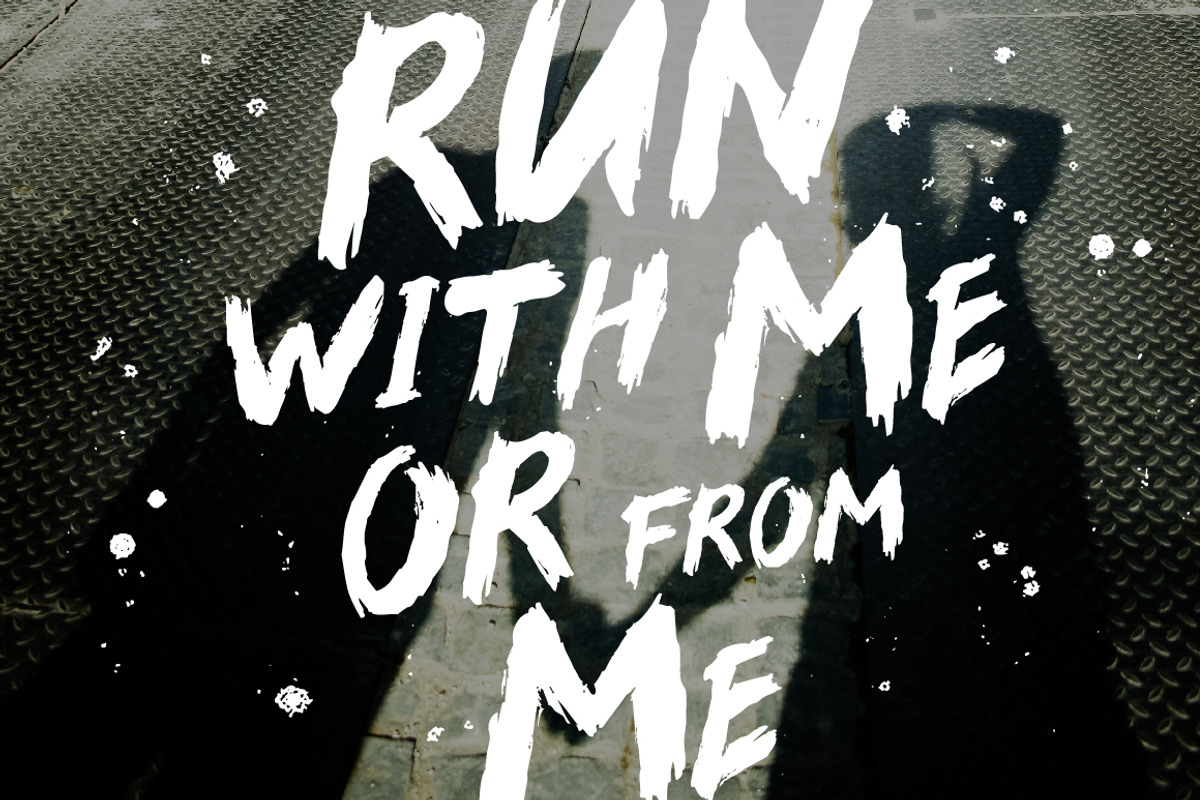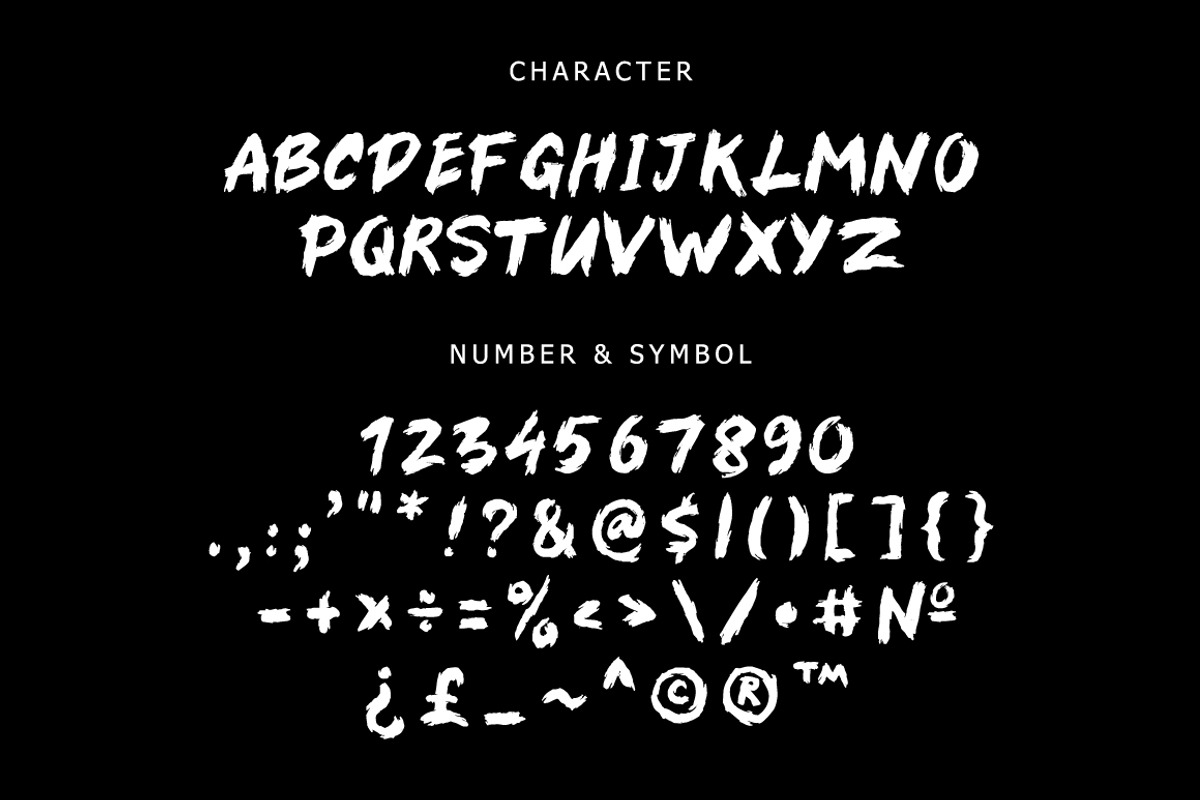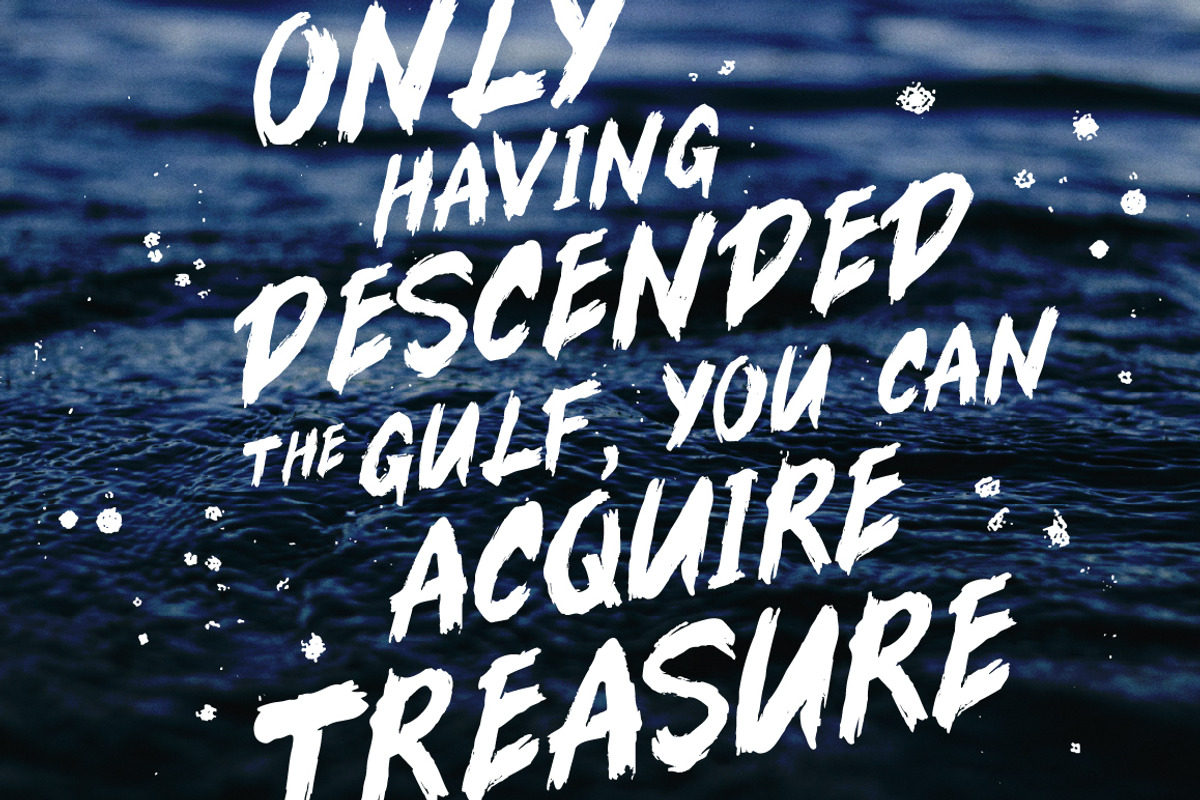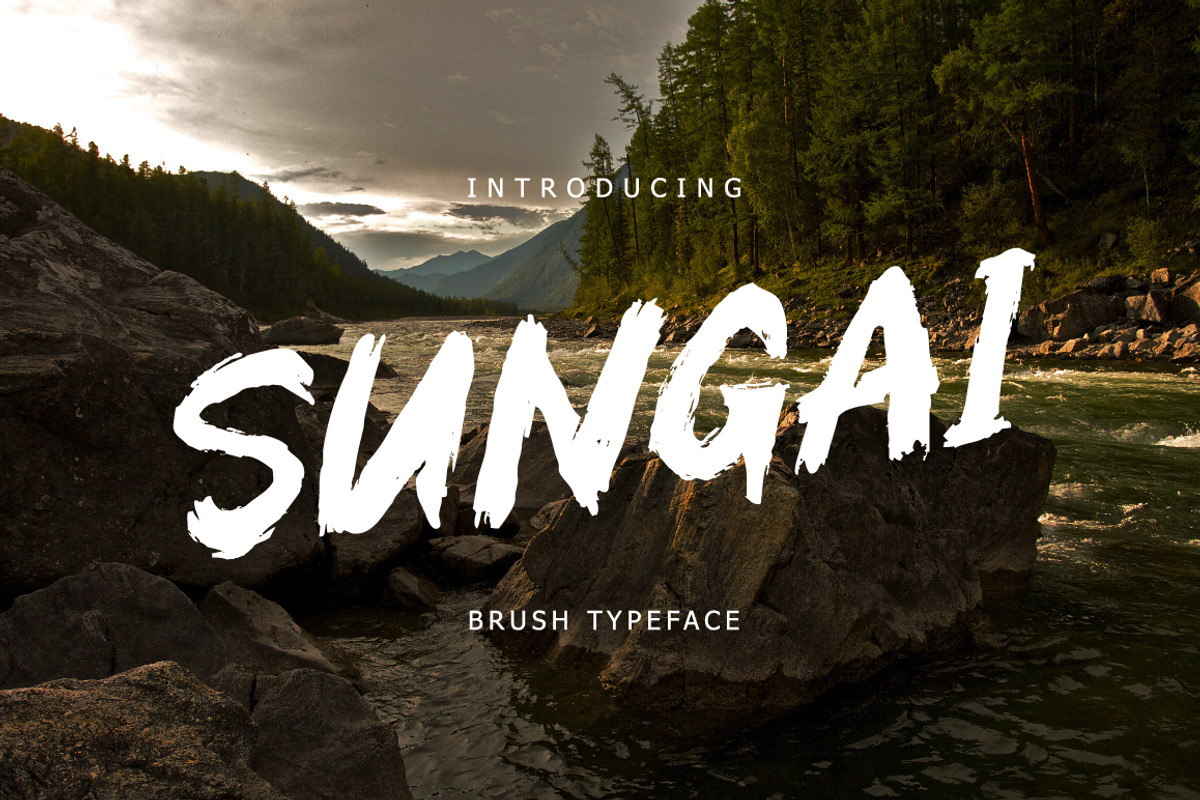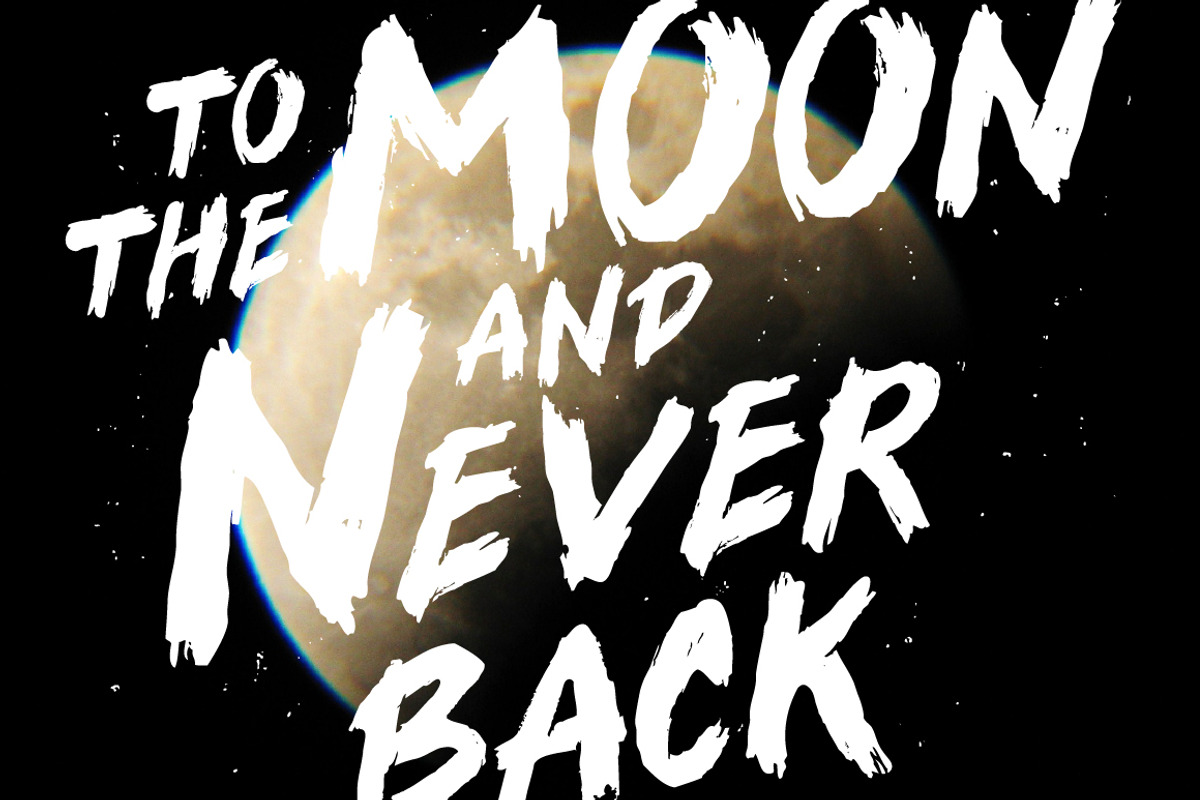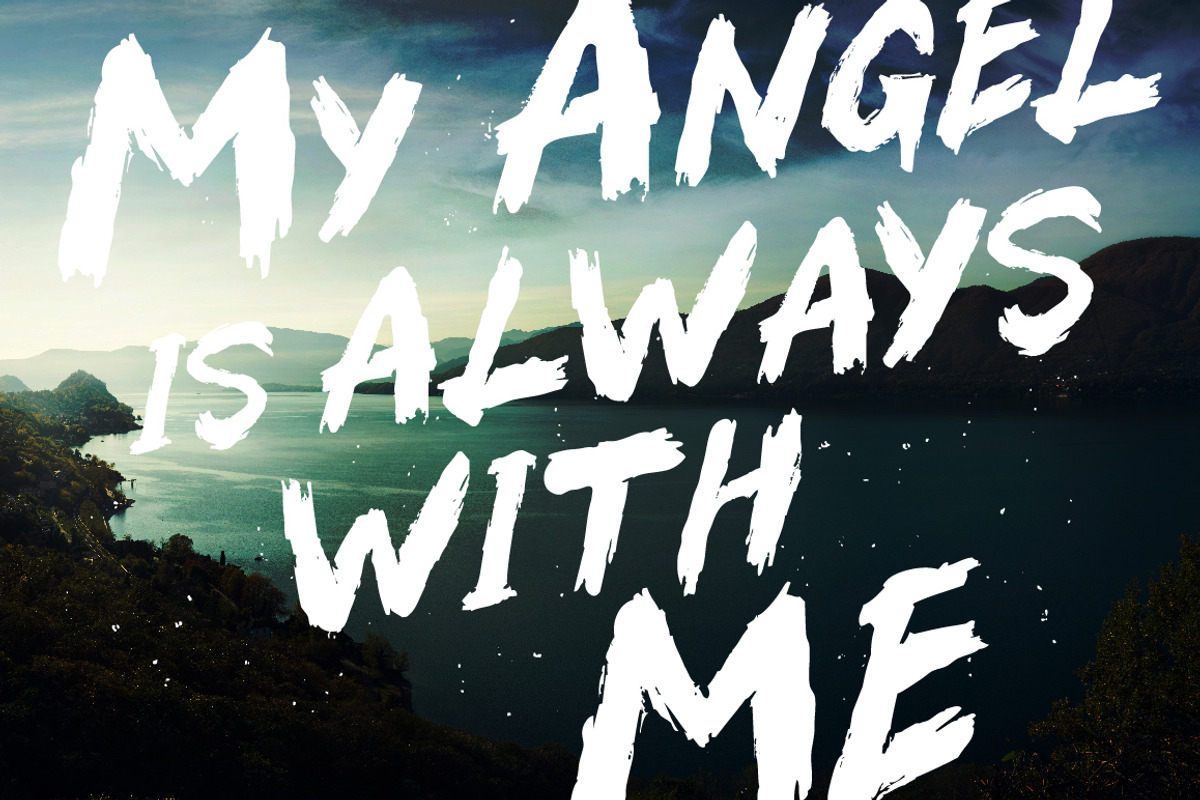
Sungai Brush Typeface
Sungai Brush Typeface by chekart is a font selected for branding, posters, packaging, typography.
- Sungai Brush Typeface comes with all caps uppercase and lowercase characters, large set of punctuation glyphs, numerals, and supports intern
Why Sungai Brush Typeface is worth a look
Sungai Brush Typeface by chekart fits naturally into Branding, posters, packaging, typography.